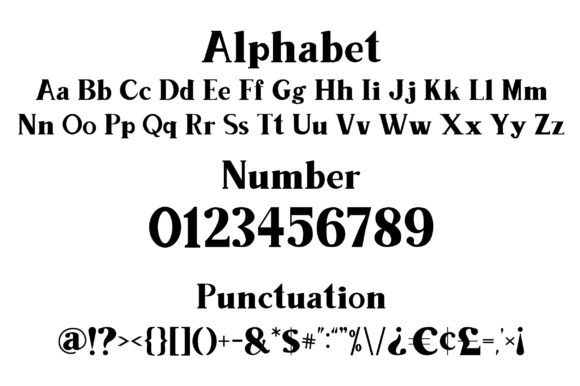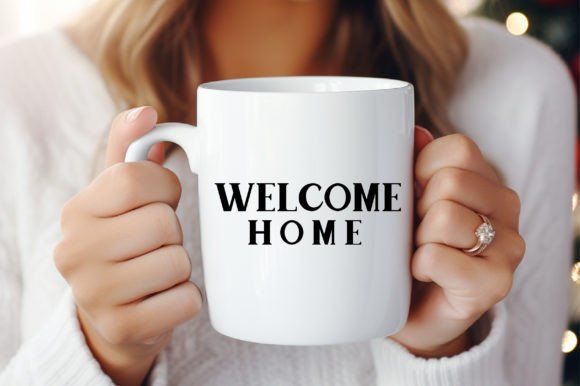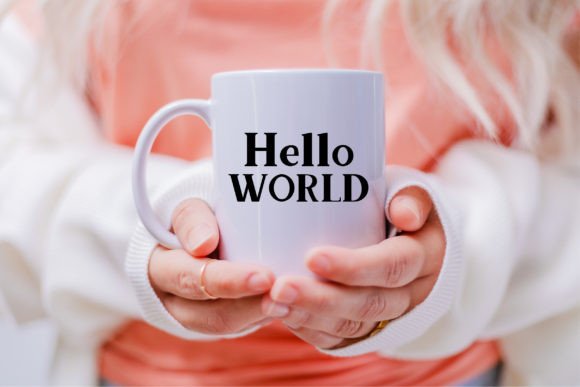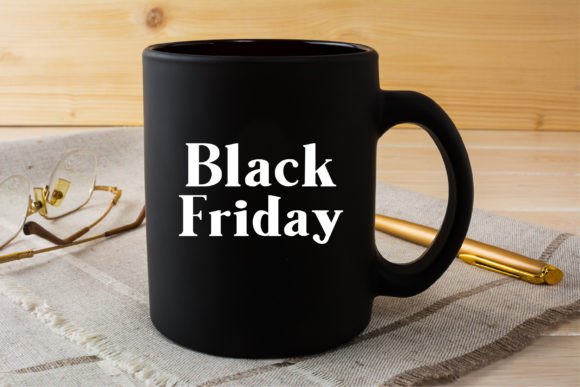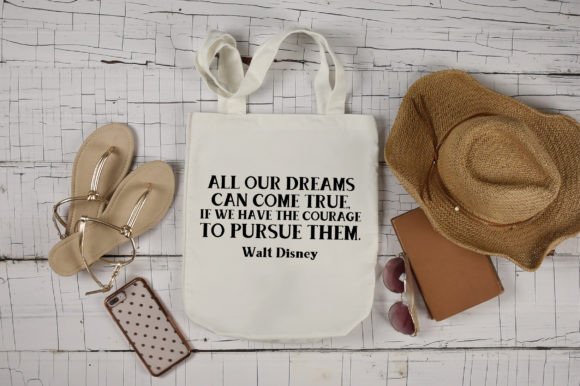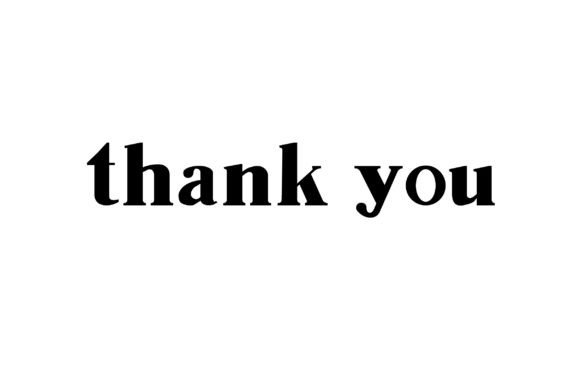
The Beauty of Handwritten Fonts: Elevate Your Design with Elegance and Sophistication
In the world of typography, handwritten fonts have gained immense popularity for their unique and stylish appeal. One such font that has caught the attention of designers and crafters alike is the Handwritten font, a serif font that boasts a modern look and elegant feel. In this article, we’ll explore the features and benefits of the Handwritten font, and how it can elevate your design to new heights.
What is Handwritten Font?
Handwritten is a stylish serif font that features its own unique style and modern look. This typeface is perfect for designers and crafters who want to add a touch of elegance and sophistication to their designs. With its clean lines, precise curves, and balanced spacing, the Handwritten font is ideal for a wide range of applications, from luxury logos and banners to book and movie titles, fashion brands, magazines, and more.
Key Features of Handwritten Font
- Unique Style: The Handwritten font features a distinctive style that sets it apart from other serif fonts. Its modern look and elegant feel make it perfect for designs that require a touch of sophistication.
- Clean Lines and Curves: The font boasts clean lines, precise curves, and balanced spacing, making it easy to read and visually appealing.
- Versatility: The Handwritten font is versatile and can be used for a wide range of applications, from luxury logos and banners to book and movie titles, fashion brands, magazines, and more.
- Elegant and Sophisticated: The font’s elegant and sophisticated feel makes it perfect for designs that require a high-end look and feel.
Uses of Handwritten Font
The Handwritten font is perfect for a wide range of applications, including:
- Luxury Logos: Create a luxurious and sophisticated logo for your brand with the Handwritten font.
- Banners: Use the font to create eye-catching banners for your website, social media, or marketing campaigns.
- Book and Movie Titles: Add a touch of elegance to your book or movie titles with the Handwritten font.
- Fashion Brands: Use the font to create stylish and sophisticated branding for your fashion brand.
- Magazines: Create a professional and elegant look for your magazine with the Handwritten font.
- Clothes, Mugs, and Shirts: Use the font to create stylish and personalized designs for clothes, mugs, and shirts.
- Christmas Invitations: Create beautiful and elegant Christmas invitations with the Handwritten font.
- Covers: Use the font to create eye-catching covers for your book, magazine, or social media posts.
- Social Media Posts: Add a touch of elegance to your social media posts with the Handwritten font.
Benefits of Using Handwritten Font
Using the Handwritten font can bring numerous benefits to your design, including:
- Unique and Stylish: The font’s unique and stylish appeal can help your design stand out from the crowd.
- Elegant and Sophisticated: The font’s elegant and sophisticated feel can add a touch of luxury to your design.
- Versatility: The font’s versatility makes it perfect for a wide range of applications.
- Easy to Read: The font’s clean lines and balanced spacing make it easy to read and visually appealing.
In conclusion, the Handwritten font is a stylish and elegant serif font that can elevate your design to new heights. With its unique style, clean lines, and balanced spacing, this font is perfect for a wide range of applications, from luxury logos and banners to book and movie titles, fashion brands, magazines, and more. Whether you’re a designer or crafter, the Handwritten font is a great addition to your typography collection.